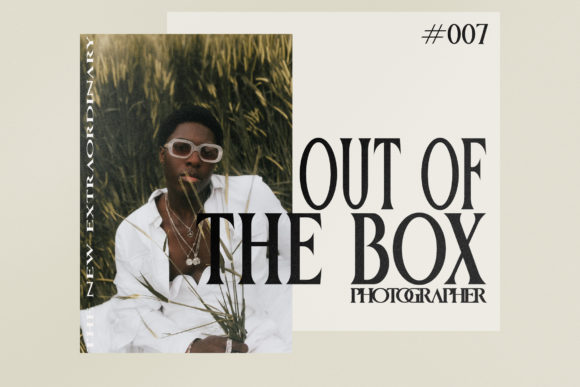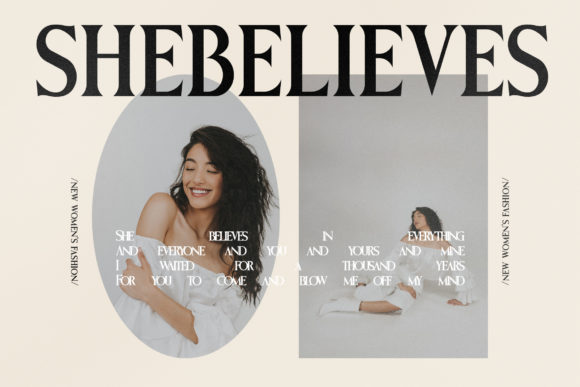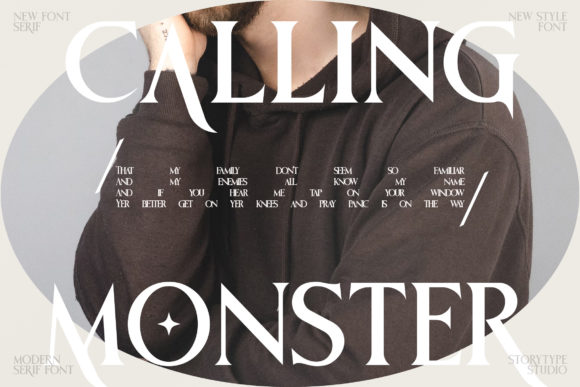
Monster of Fantasy Font
About the Monster of Fantasy Font
Unleash your creativity with Monster of Fantasy Font, a versatile font perfect for a wide range of applications. Monster of Fantasy is a modern and classic serif font featuring its own unique style and modern look.
This typeface is perfect for an elegant & luxury logo, book or movie title design, fashion brand, magazine, clothes, lettering, quotes, and so much more.
Its strong serifs and confident letterforms make Monster of Fantasy ideal for headlines, logos, and short-form text applications such as posters and packaging. The font’s inherent elegance lends itself well to branding projects requiring a touch of sophistication and classic appeal. However, its weight and x-height aren’t suited for extended body text or UI elements where readability is paramount.
For optimal visual harmony, pair Monster of Fantasy with a clean sans-serif like Open Sans for body copy, or a more playful script font such as Pacifico for secondary text elements, adding contrast and visual interest. A geometric sans-serif like Montserrat could also provide a balanced modern feel, maintaining a sophisticated yet contemporary aesthetic.
Monster of Fantasy projects an air of refined boldness. It’s a font that commands attention without being overly aggressive, making it suitable for brands that aim for a balance between classic elegance and modern confidence.